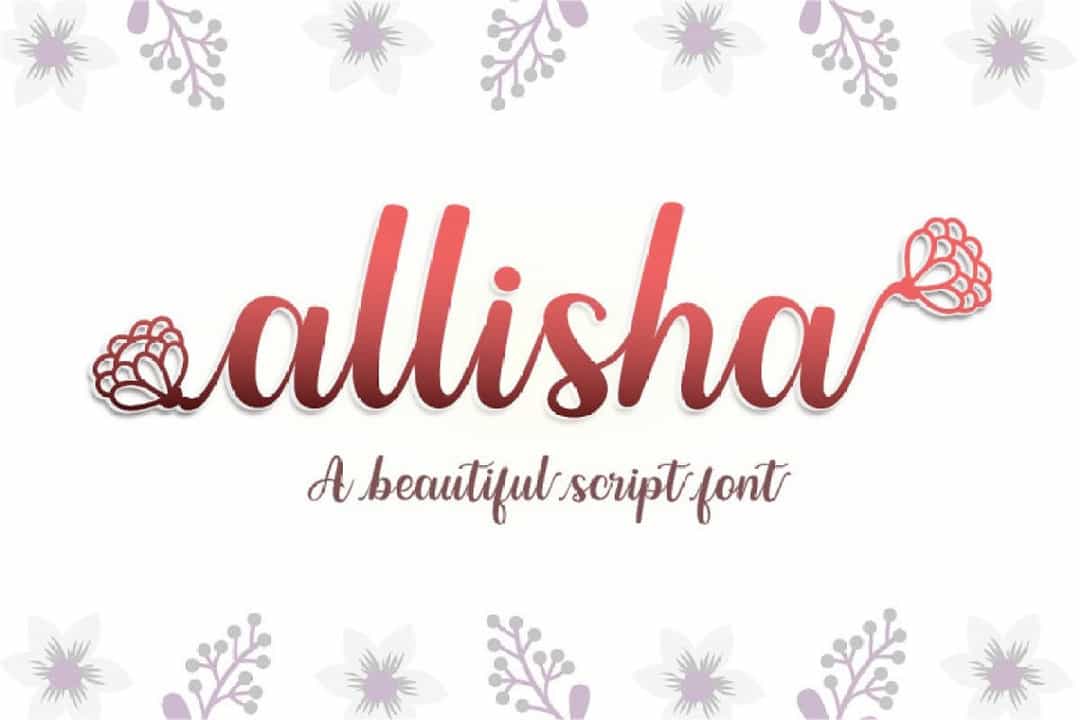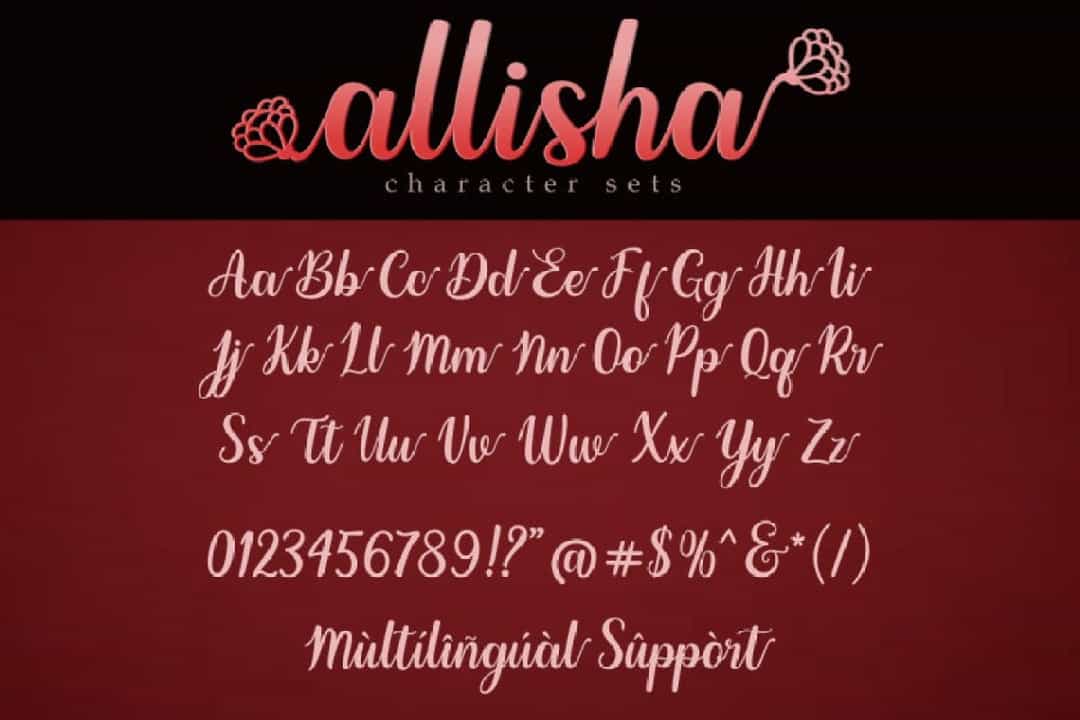
Allisha is a beautiful hand written calligraphy style font with floral decoration. The organic and unique look of Allisha ensures that it would complement many themes and styles and the use of this product is only limited by one’s creativity. That’s where Allisha comes in as it is PUA encoded which means that all of its glyphs and swashes can be easily accessed!